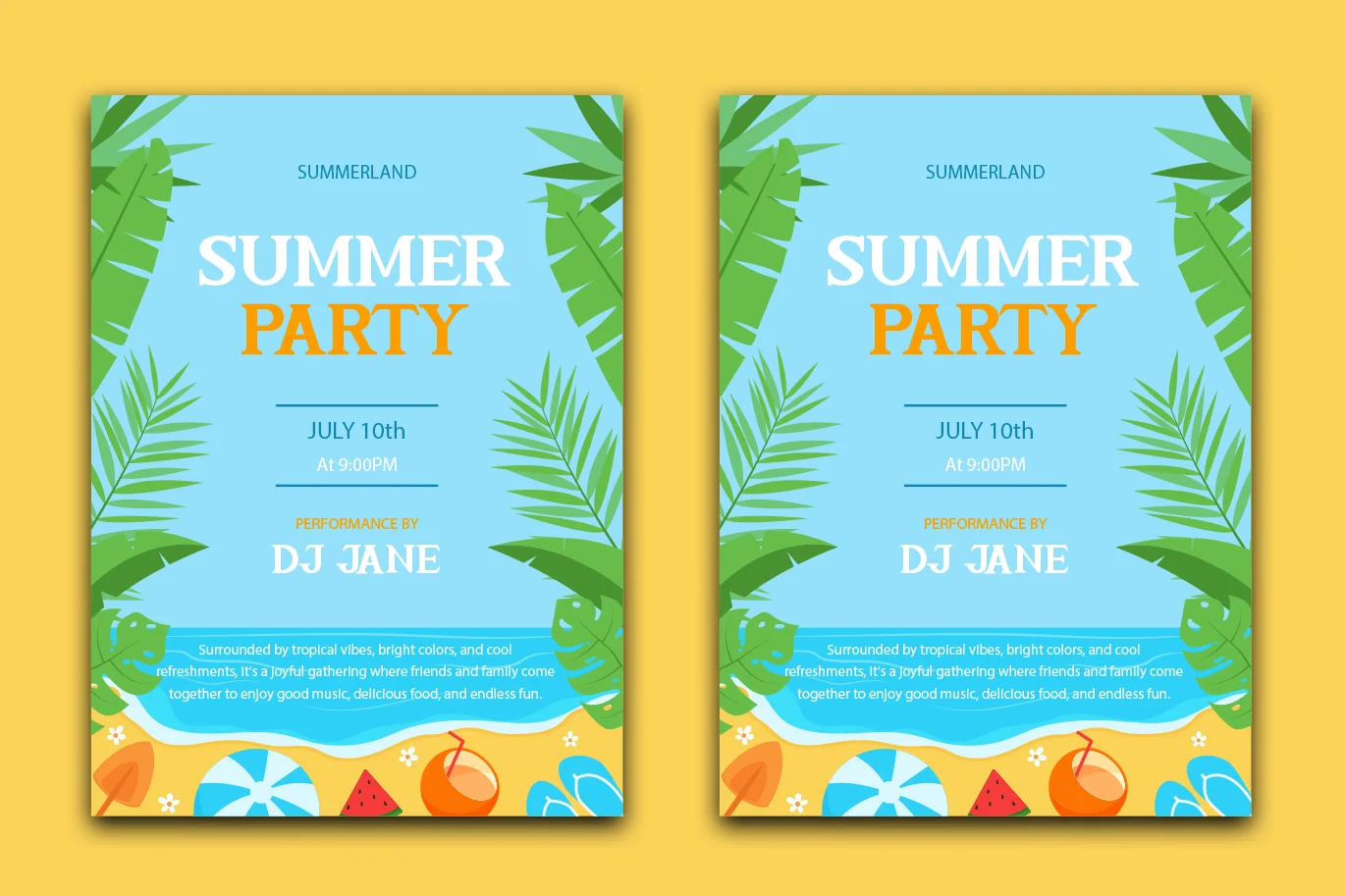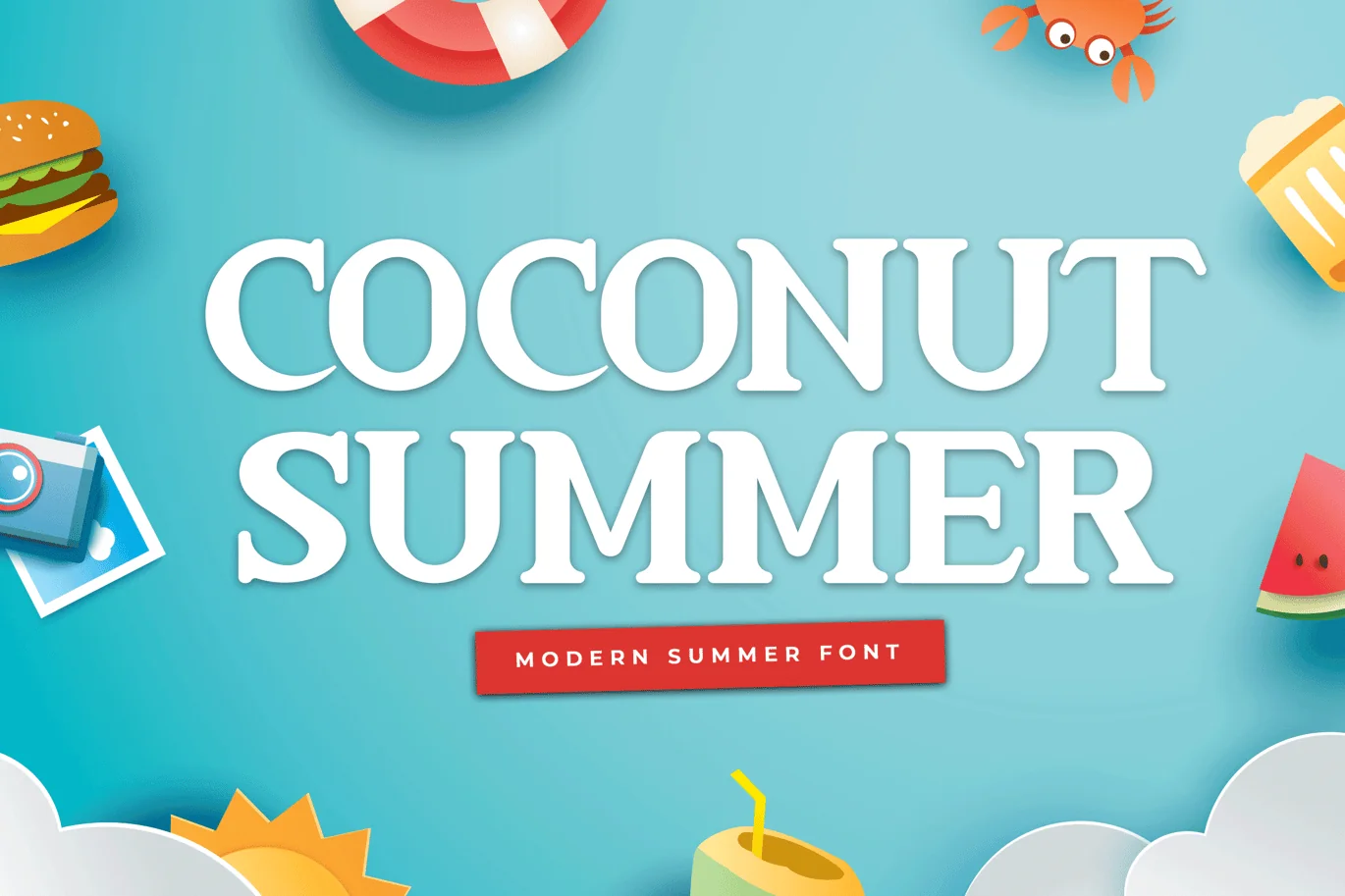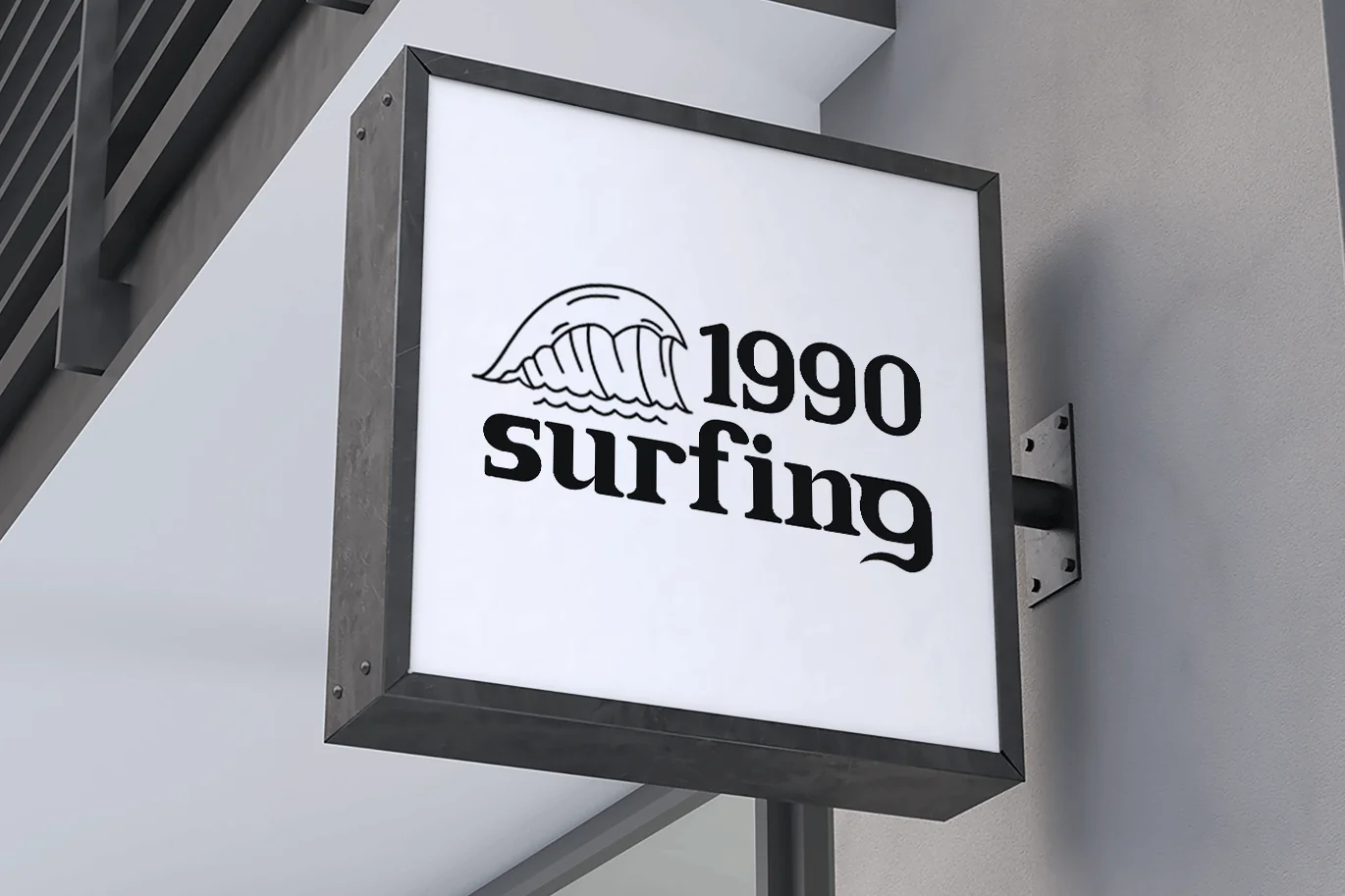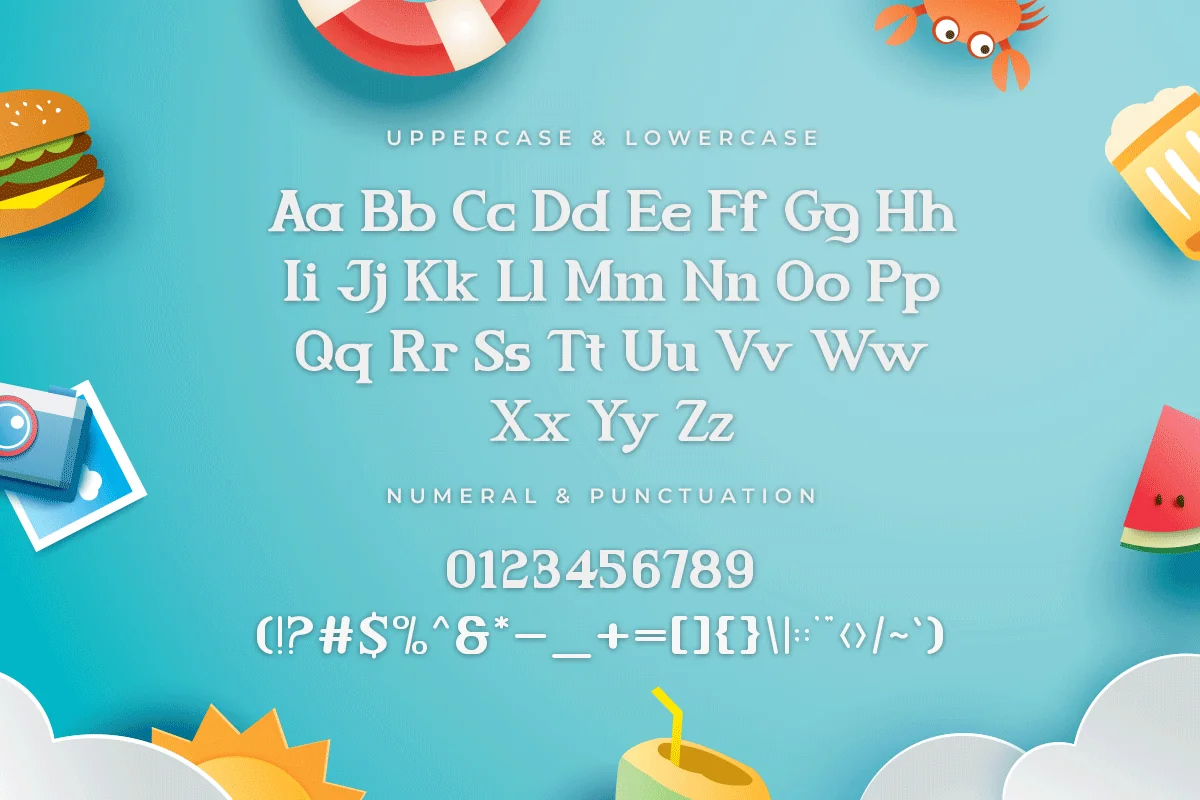
Coconut Summer – A Modern Summer Font
Say hello to Coconut Summer, a modern summer font that brings sunshine, beaches, and vacation vibes to your designs! With its playful curves and relaxed, breezy style, this typeface is perfect for capturing the spirit of summer in everything from branding and packaging to social media posts, event flyers, and travel-themed projects.
Whether you’re creating a tropical poster, refreshing product label, or sunny Instagram graphics, Coconut Summer adds a warm, cheerful personality that draws attention and spreads joy. Its friendly design, clear legibility, and stylish charm make it a perfect choice for creative professionals and hobbyists alike.
Let your creativity go on holiday with Coconut Summer!